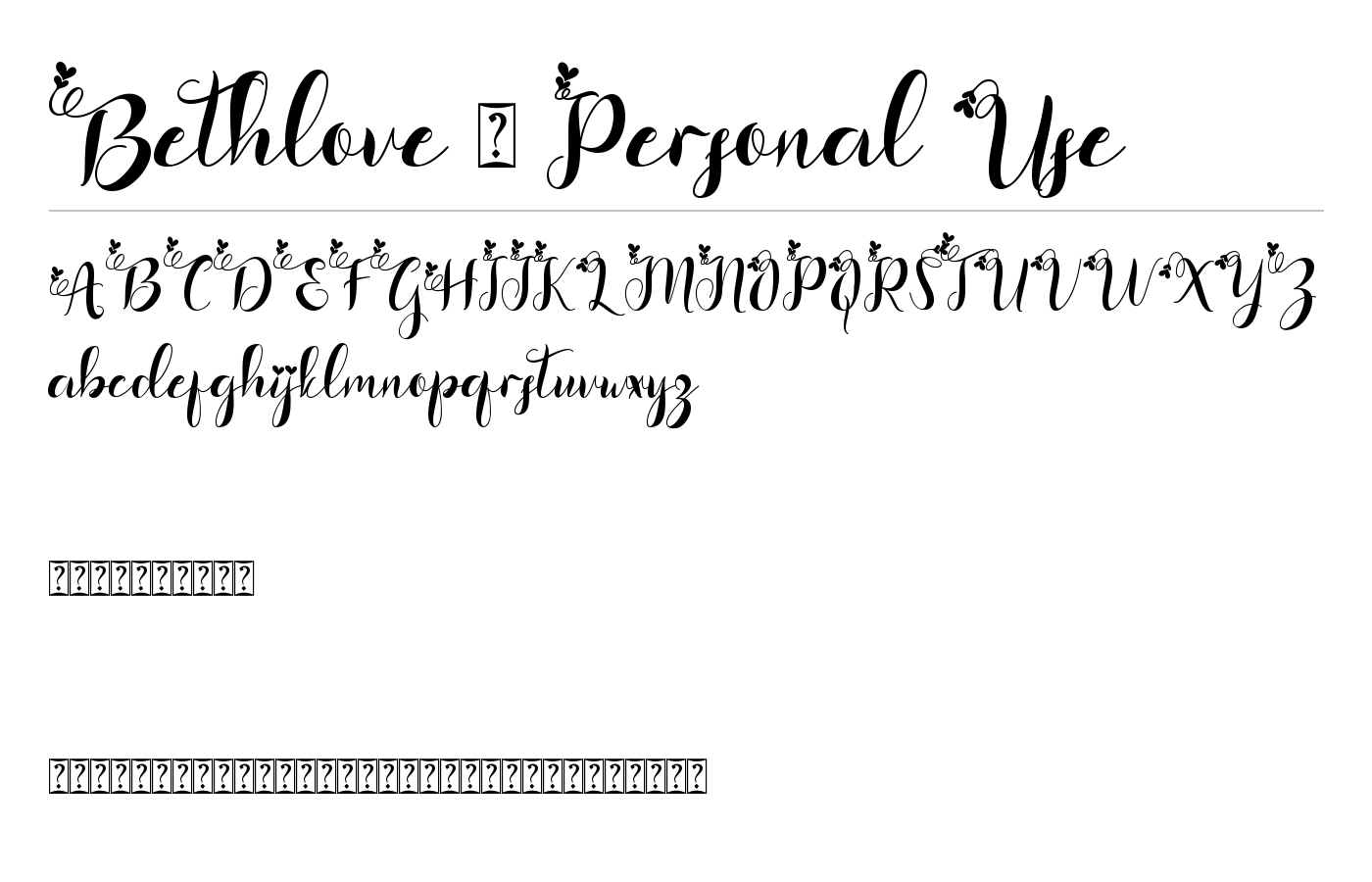
Bethlove Font is an elegant and playful script typeface with delicate, flowing strokes and charming heart-shaped accents that add a whimsical touch. Its smooth, calligraphic style makes it ideal for romantic designs, invitations, and branding that seeks a personal, warm, and stylish feel. This font works beautifully in headlines, logos, and decorative text where a touch of sophistication and friendliness is desired.
Bethlove Font
About Bethlove Font
| Font family | Bethlove Font |
| Designer | Yoga Letter 2020 (Isroni Yoga Prasetya) |